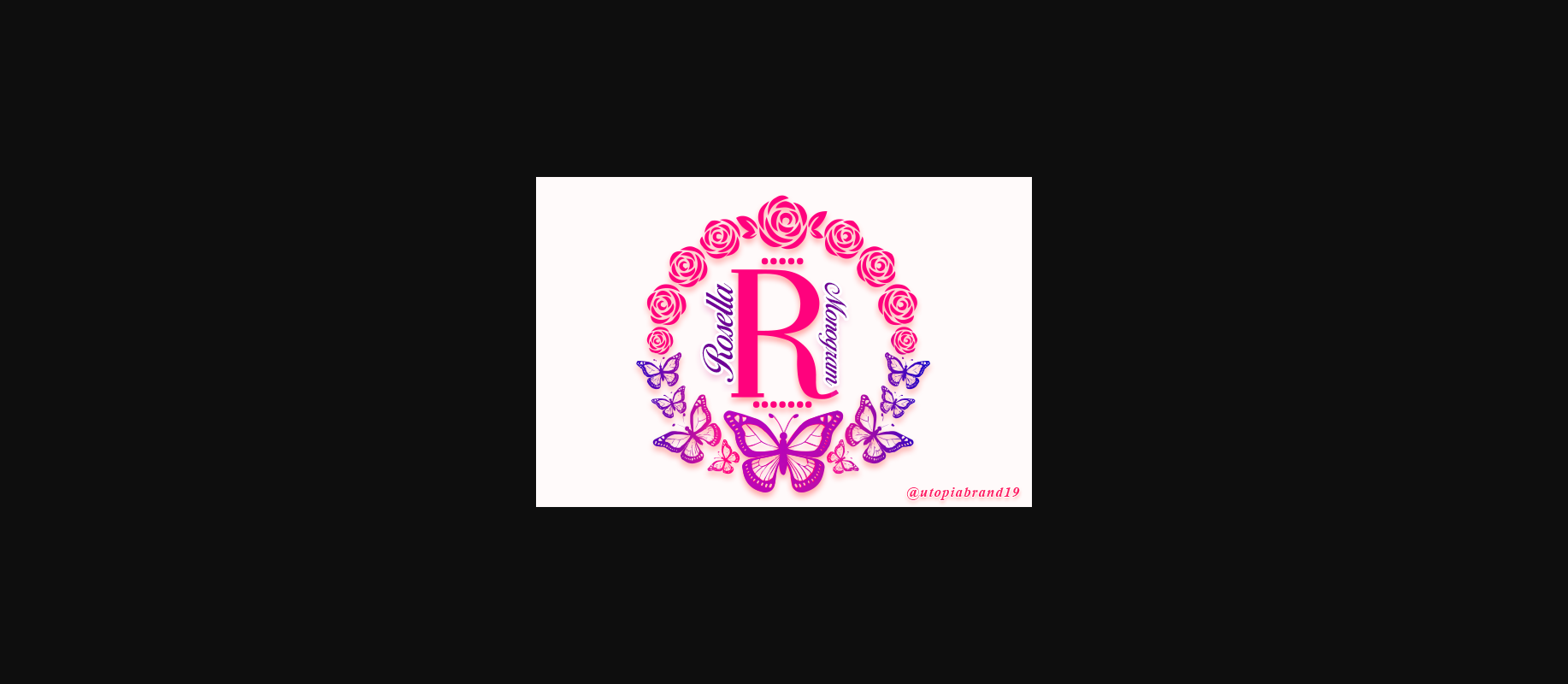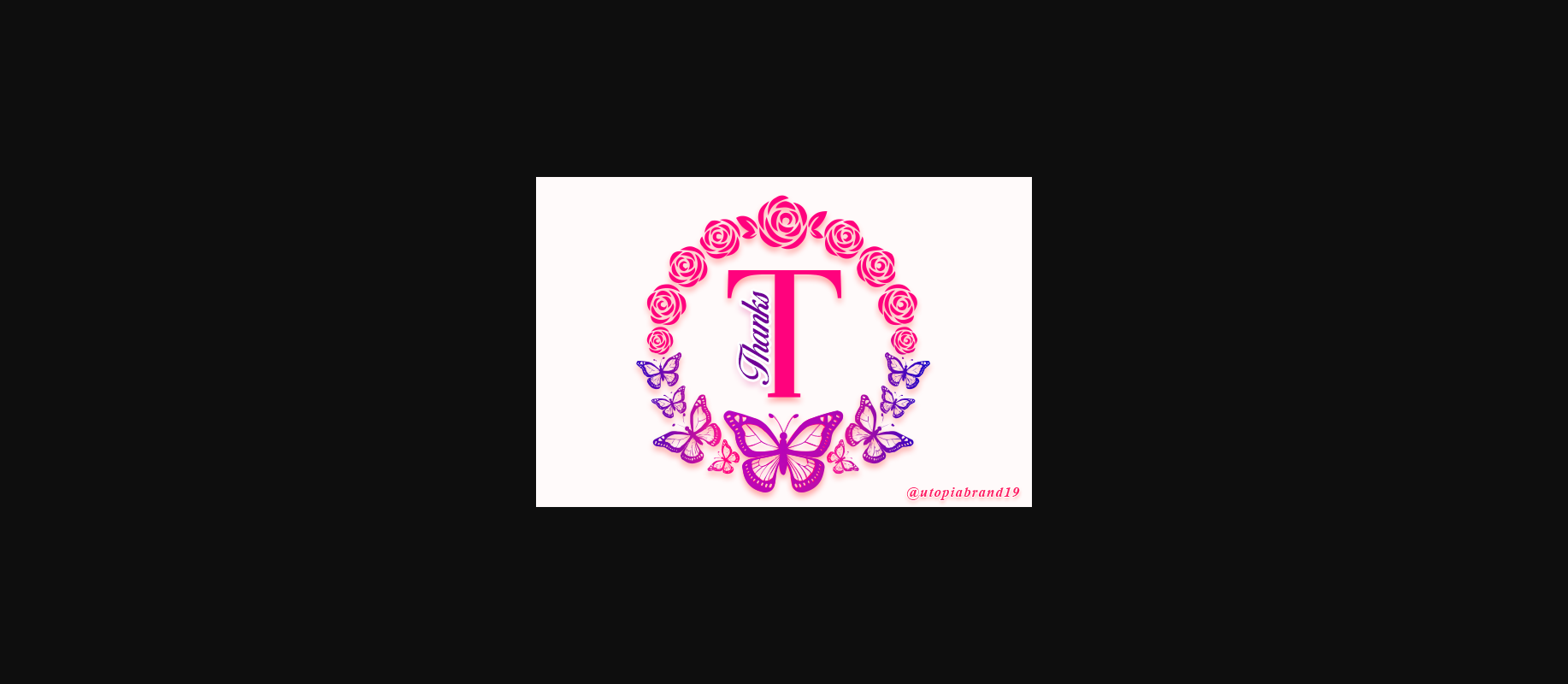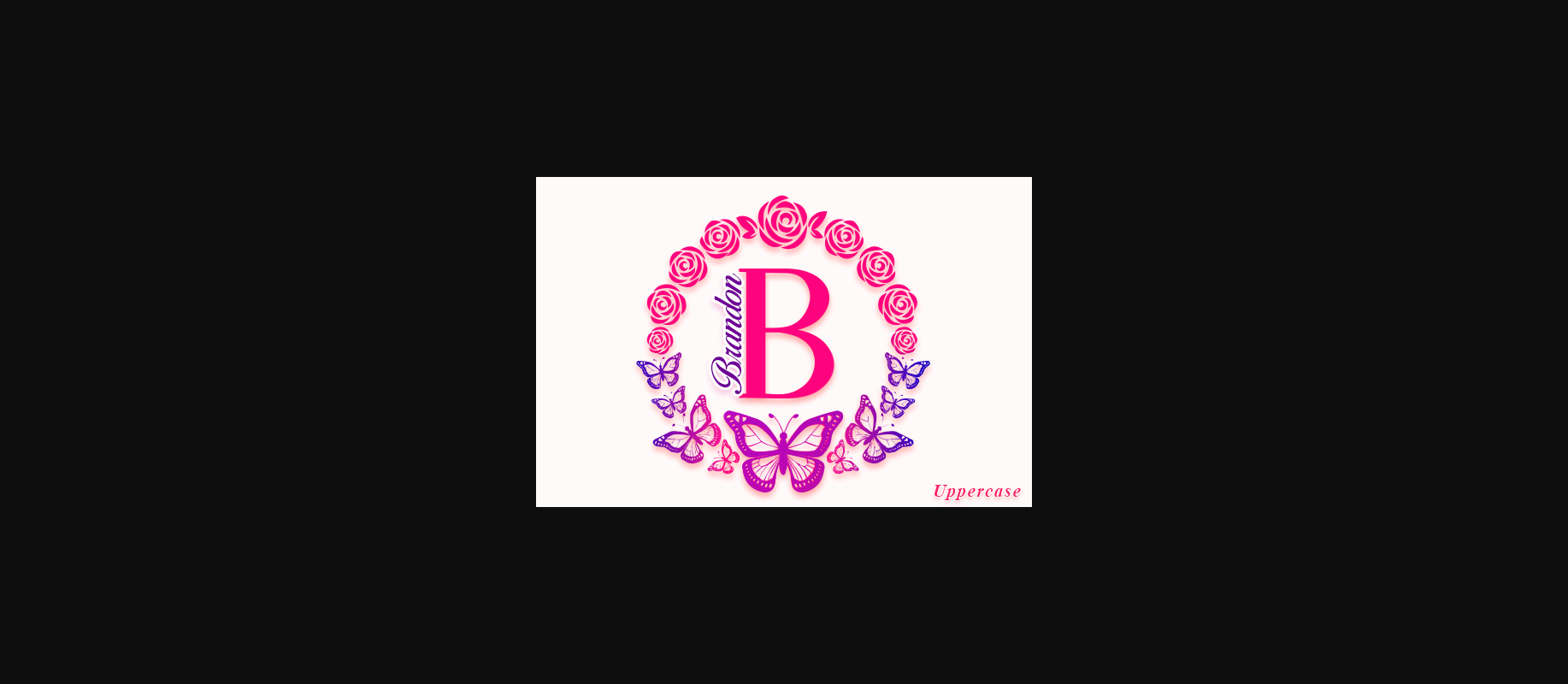
About Rosella Monogram Font
Rosella Monogram is a dainty and uniquely designed decorative font. Add this romantic and lovely looking font to each of your love letters, wedding invitations or favorite design ideas, and you will be astounded by the outcome.